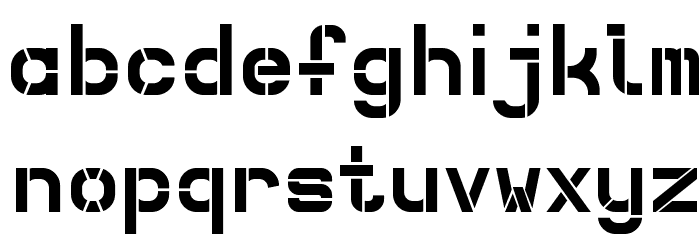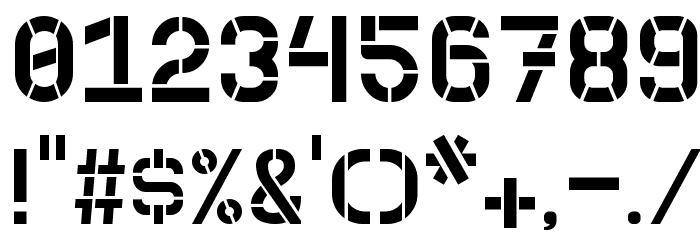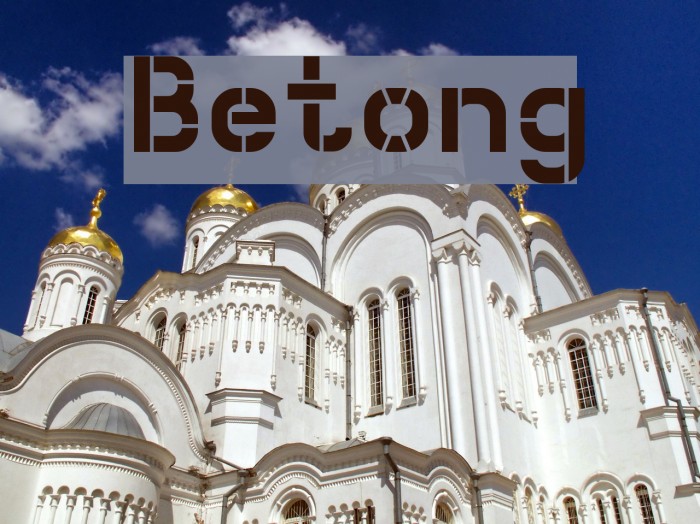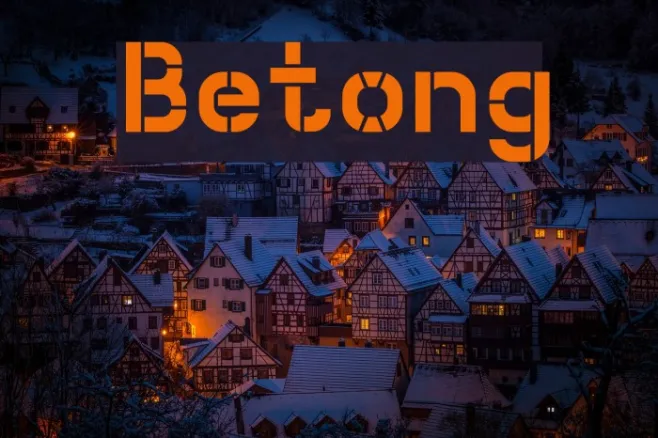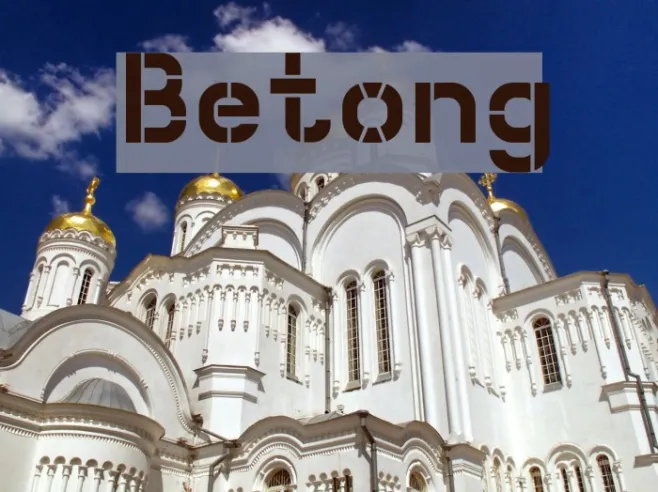
Betong Font
This font features a bold and geometric design with a unique stencil-like appearance. Each character is composed of solid black segments with distinct gaps, creating a modern and industrial look. The uppercase and lowercase letters maintain a consistent style, with sharp angles and clean lines. The numbers and special characters follow the same design principles, ensuring uniformity across the font. This typeface stands out due to its high contrast and striking visual impact, making it ideal for attention-grabbing designs.
A bold, geometric stencil font with high contrast and industrial style.
- Proposed Projects: Ideal for branding, posters, signage, and any project requiring a bold, modern aesthetic.